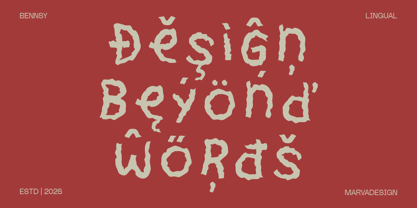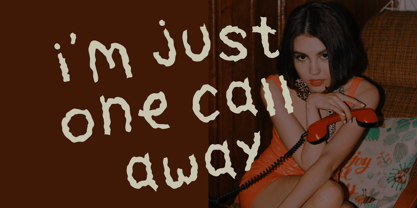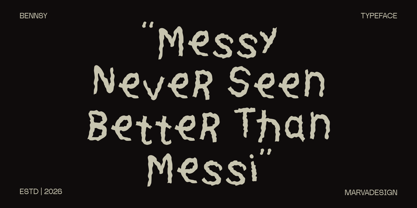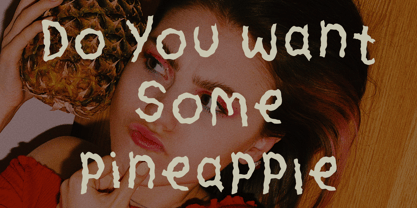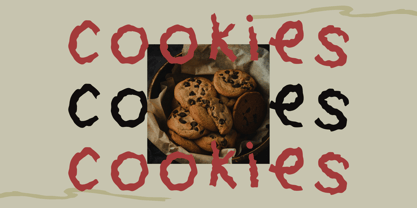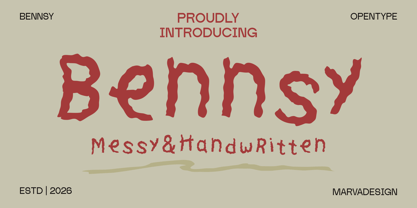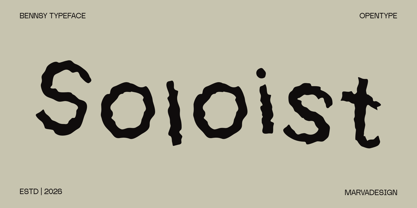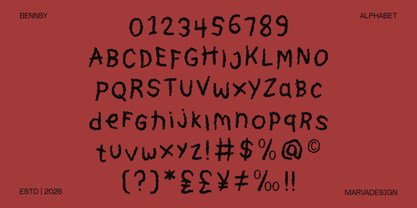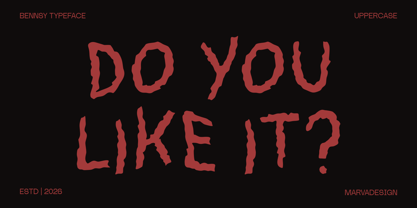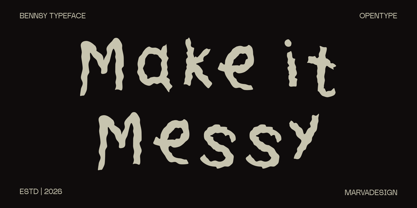
Bennsy
by Marvadesign
The Bennsy Font Family was designed by Febrie Setiawan and published by Marvadesign. Bennsy contains 1 styles. More about this family
Bennsy is a messy handwritten display font inspired by natural marker strokes and imperfect hand lettering. Its playful and organic style brings warmth and personality to every design, making it perfect for branding, packaging, posters, social media, children's projects, and creative headlines. Designed to stand out, Bennsy delivers an authentic handcrafted look with effortless charm.
Designers: Febrie Setiawan
Foundry: Marvadesign